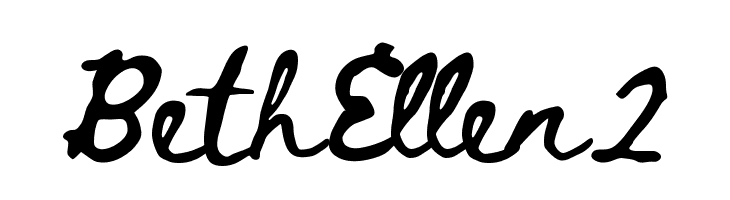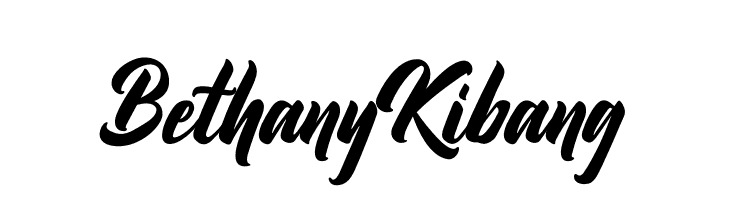
A casual, handwritten cursive font with a bold presence.
A decorative font featuring characters from a popular animated series.
A modern, flowing font with artistic and fluid character design.
A pixelated, retro-style font with a digital aesthetic.
A bold, fluid script font with a dynamic, handwritten style.
A bold, flowing script font with elegant, interconnected characters.
An elegant, flowing script font with a sophisticated cursive style.
A bold, modern sans-serif font with thick, uniform strokes and rounded edges.
A bold, retro font with a typewriter key style and shadow effect.
A bold, cursive script font with dynamic and fluid characters.